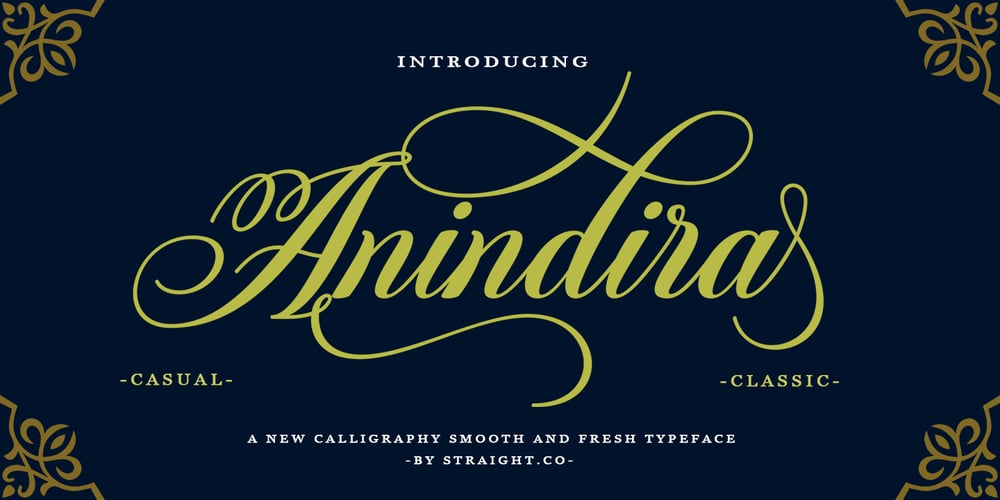
Anindira Font Family was designed by Imam Muhajir and published by Straight.Co. Anindira contains 1 styles and family package options. Anindira Script is elegant calligraphy font. This font is casual and pretty with swashes. It can used for various purposes, such as logo, product packaging, wedding invitations, branding, headlines, signage, labels, signature, book covers, posters, quotes and more.Anindira Script features OpenType stylistic alternates, ligatures and International support for most Western Languages is included. To enable the OpenType Stylistic alternates, you need a program that supports OpenType features such as Adobe Illustrator CS, Adobe Indesign & CorelDraw X6-X7, Microsoft Word 2010 or later versions.How to access all alternative characters using Adobe Illustrator:https://www.youtube.com/watch?v=XzwjMkbB-wQAnindira Script is coded with PUA Unicode, which allows full access to all the extra characters without having special designing software. Mac users can use Font Book, and Windows users can use Character Map to view and copy any of the extra characters to paste into your favourite text editor/app.How to access all alternative characters, using Windows Character Map with Photoshop:https://www.youtube.com/watch?v=Go9vacoYmBwIf you have any question, don’t hesitate to contact me by email.Thanks so much for looking and Enjoy it!